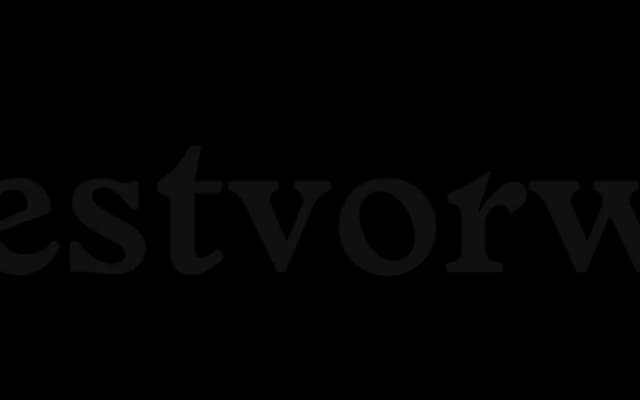
Larish Alte
Radim Pesko · Radim Peško · 2006
A single-weight display serif by Radim Peško, rooted in the early twentieth-century lettering prints of Rudolf von Larisch and originally drawn for the Secession art space in Vienna.
Developed in 2006 for the visual identity of Secession in Vienna, Larish Alte takes its formal cues from the calligraphic lettering books of Rudolf von Larisch. The family offers a single Semibold weight with two stylistic sets centred on single and double-storey lowercase 'a' variants, paired with alternates for the lowercase 'y' and uppercase 'A', alongside lining and old-style figures, ligatures and an interfinity mark. Its use in headlines for Der Standard points to a typeface that holds up at large scale in editorial contexts.
Larish Alte draws on early twentieth-century lettering and calligraphic print traditions associated with Rudolf von Larisch, resulting in a distinctive display serif with expressive, calligraphically influenced strokes rather than a conventional text-serif structure.